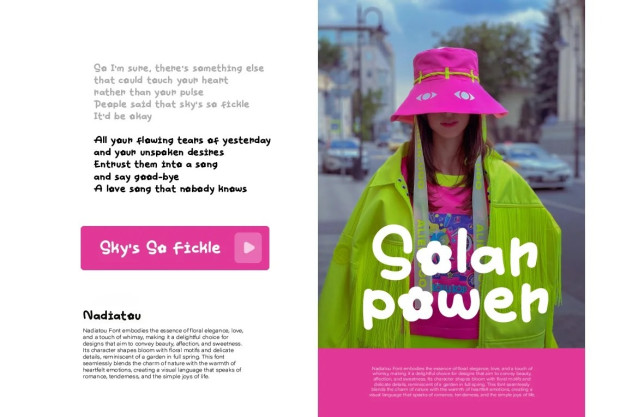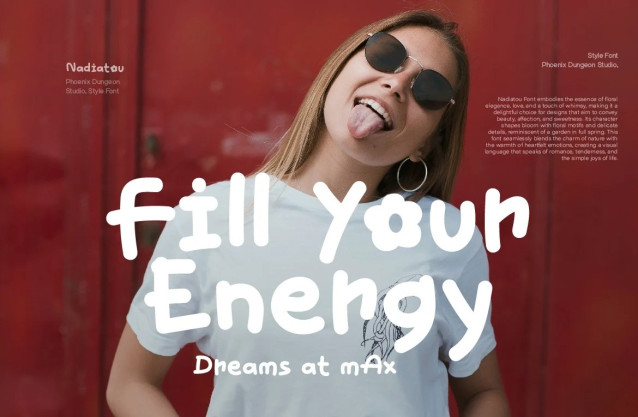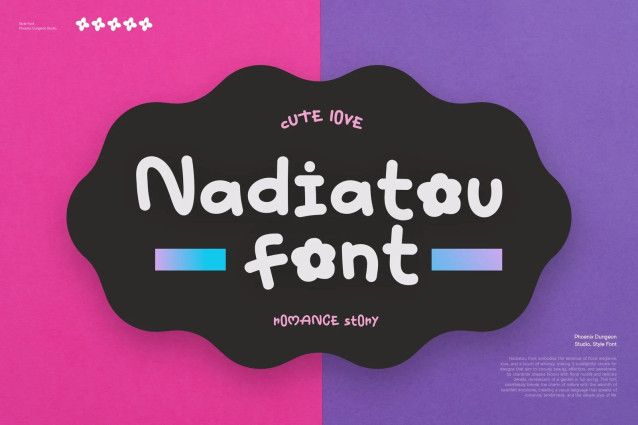
Nadiatou Font
Nadiatou Font is a delightful handwriting font that combines natural elegance with a youthful, whimsical charm. Its flowing, hand-drawn letterforms are adorned with subtle floral and candy-inspired elements, creating a playful and inviting aesthetic. The font’s gentle curves and vibrant details evoke a sense of blooming freshness and sweet delight, making it perfect for projects aimed at a young audience. Ideal for cheerful branding, creative invitations, and fun-themed designs, Nadiatou infuses any project with a lively, youthful spirit and a touch of natural beauty.